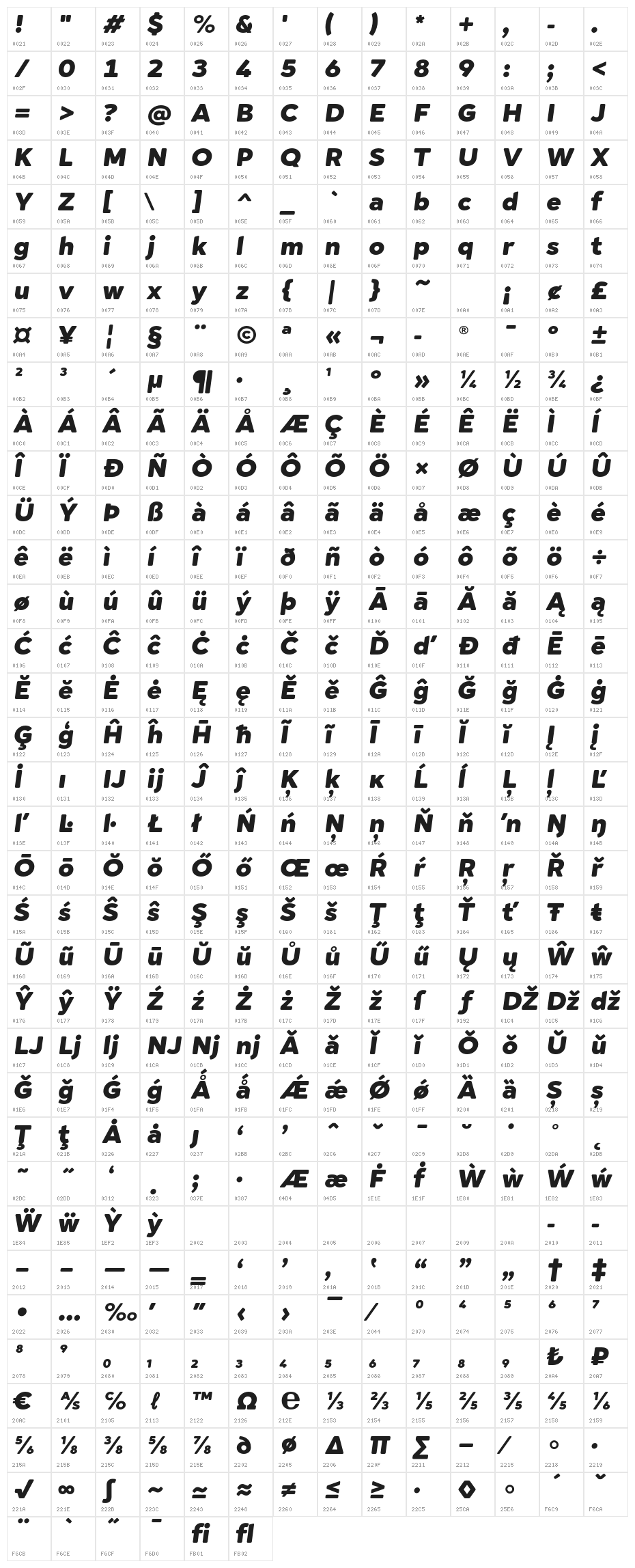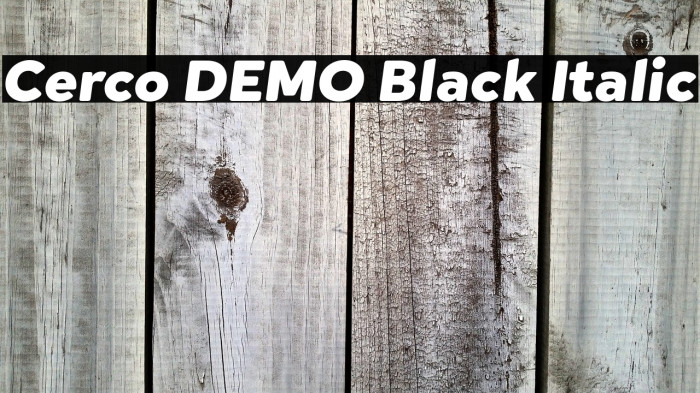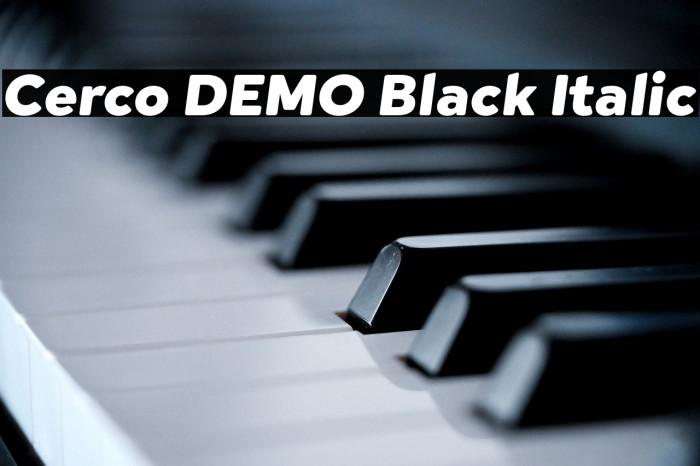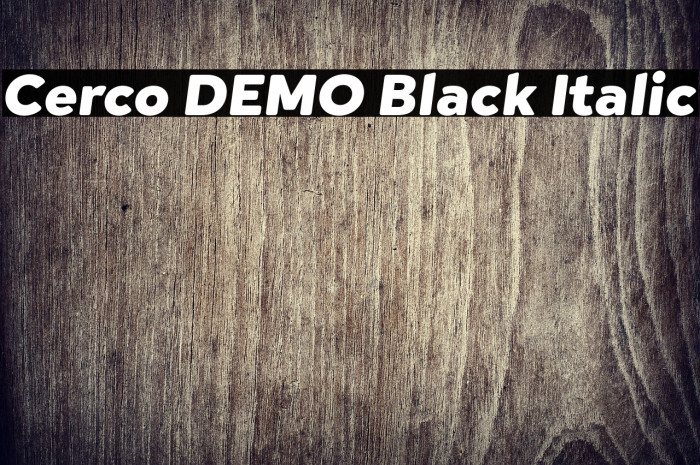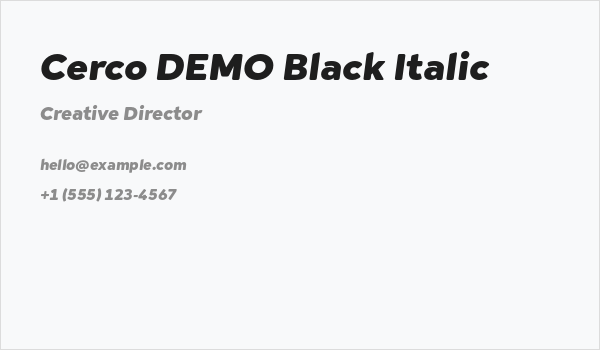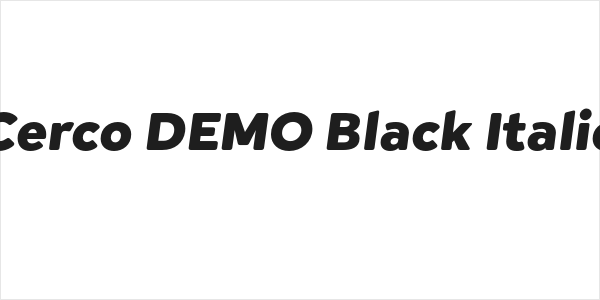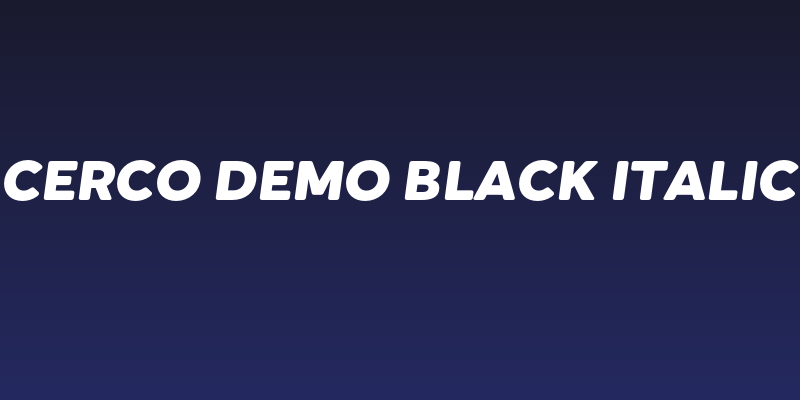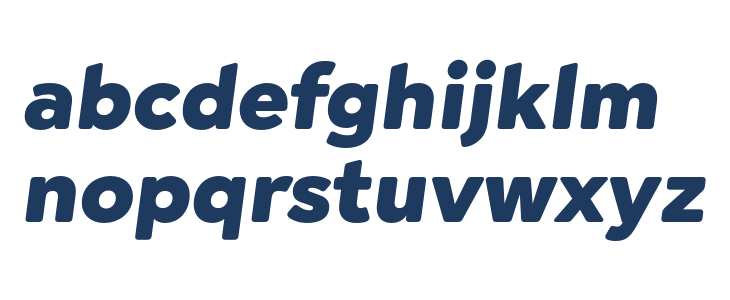
Cerco DEMO Black Italic Font
Cerco DEMO Black Italic Description
This font features a bold and dynamic style with a strong italic slant, giving it a sense of motion and energy. The characters are thick and rounded, providing a friendly and approachable appearance. The uppercase and lowercase letters maintain a consistent weight, ensuring readability and uniformity. The numerals are equally bold, matching the overall aesthetic of the alphabet. Special characters are included, maintaining the same bold and italicized style, making this font versatile for various uses. The overall design is modern and impactful, suitable for making statements.
| Use Case | Headlines, Logos, Advertising |
| Proposed Projects | Ideal for branding, advertising, headlines, and any project requiring a strong visual impact. |